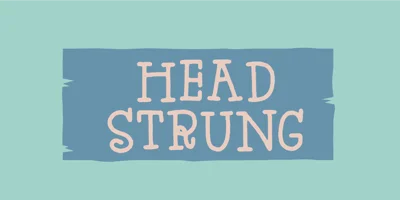
Head Strung Font
With its unique, heavy-lettered style, Head Strung Font stands out in any design, offering a modern, industrial feel that commands attention. It’s ideal for projects that want to make a bold statement, from event promotions to digital media and product labels.
Head Strung Font supports multilingual characters, making it a versatile choice for global projects. Its strong, legible form ensures readability even at larger sizes, making it effective for both print and digital designs.